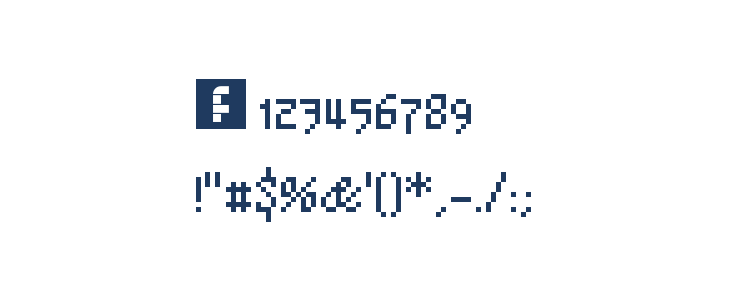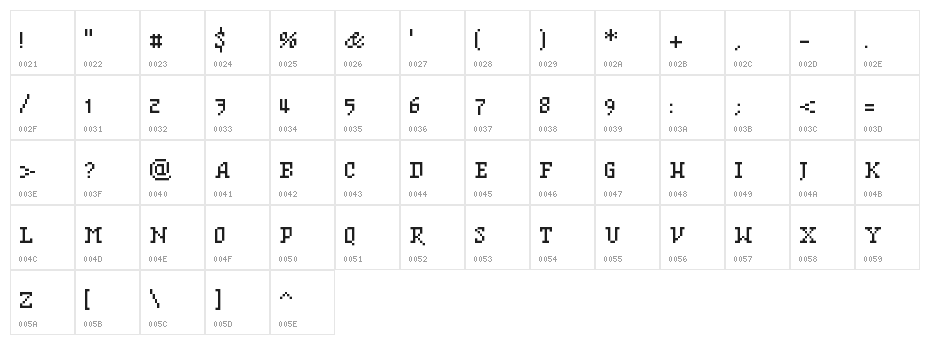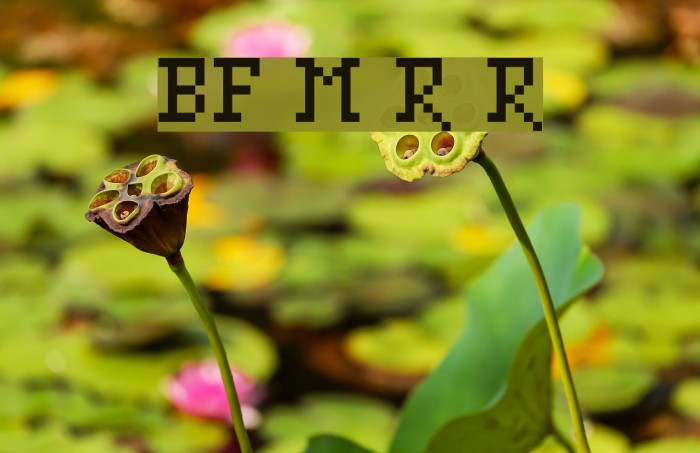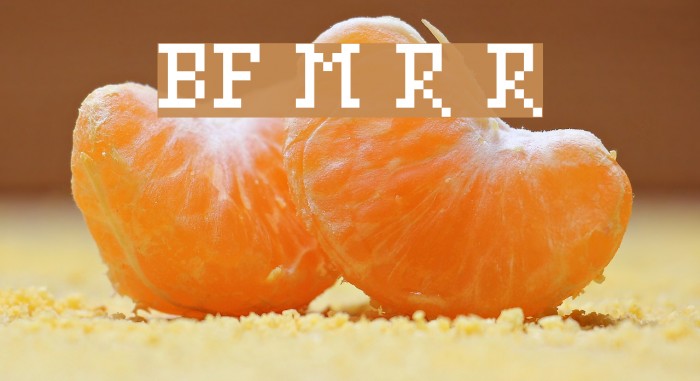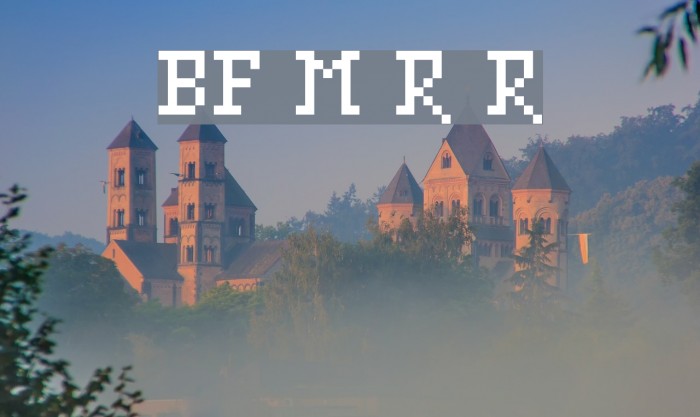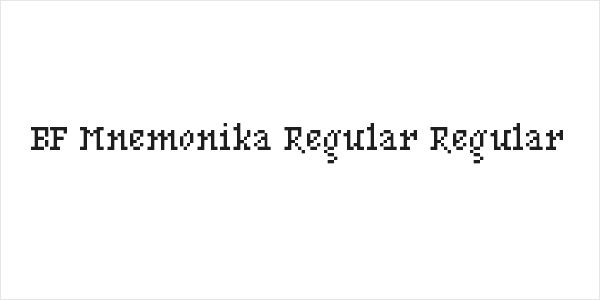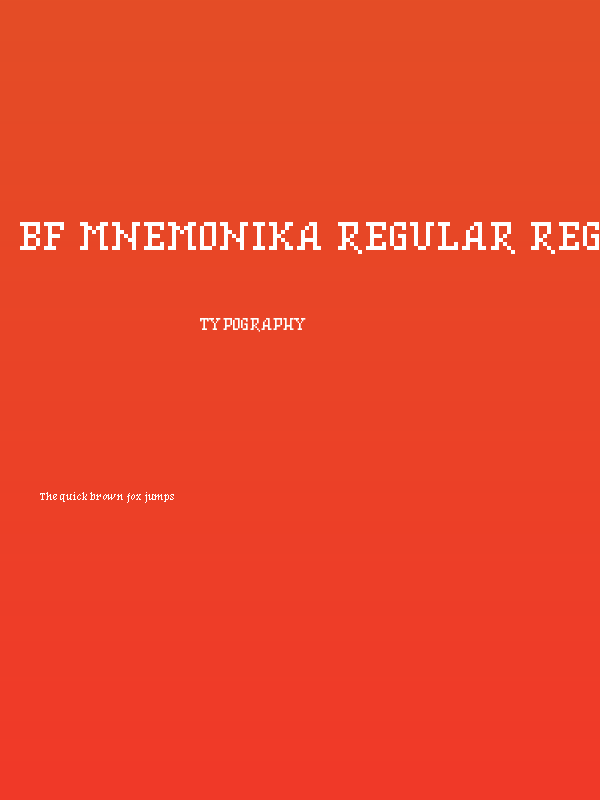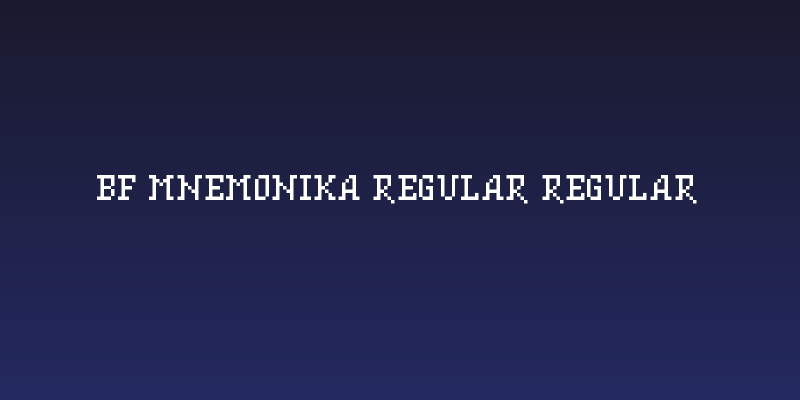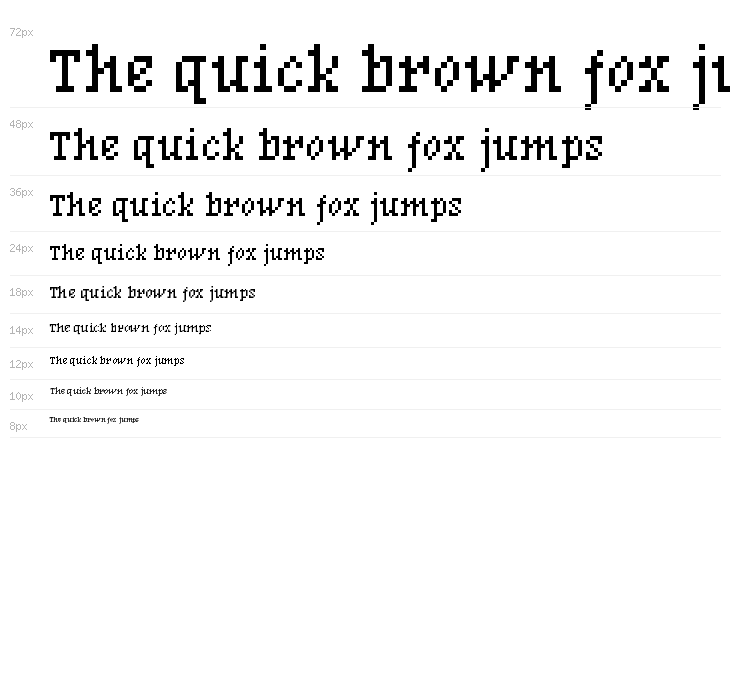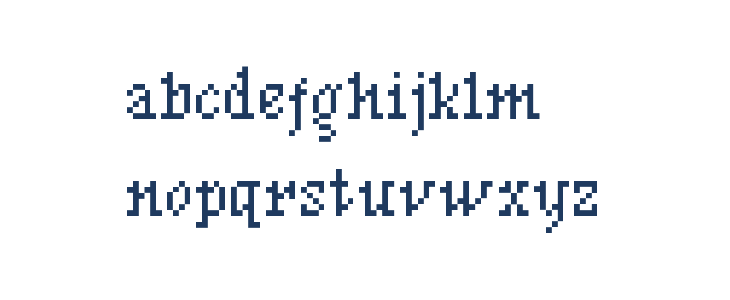
BF Mnemonika Regular Font
BF Mnemonika Regular Description
This font features a pixelated, grid-like design reminiscent of early digital displays and retro video games. Each character is composed of small, square blocks that create a distinct, mechanical appearance. The uppercase letters maintain a uniform height, while the lowercase letters are slightly shorter, preserving readability. Numbers and special characters follow the same pixelated style, ensuring consistency across all glyphs. The font's geometric nature gives it a structured and orderly feel, making it suitable for designs that require a digital or vintage aesthetic.
Overall StyleVintage
Proposed ProjectsIdeal for retro video game designs, digital art projects, tech-themed posters, and any creative work that seeks a nostalgic digital look.